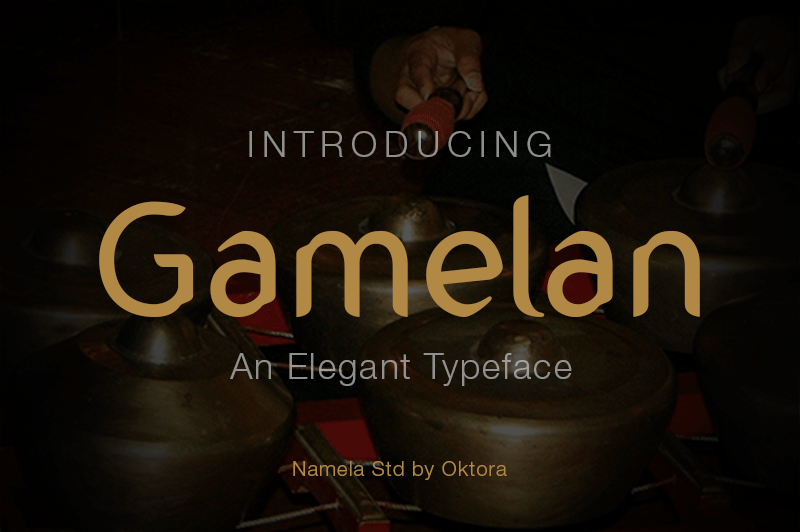
Gamelan Typeface
Gamelan is a futuristic all-caps display typeface with geometric forms, designed by Oktora Mila. Ideal for product names, packages, labels, old fashioned coffee shops, bars and everything with specific characteristics of past times.